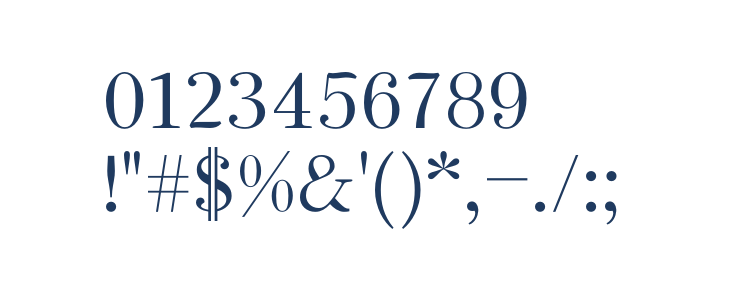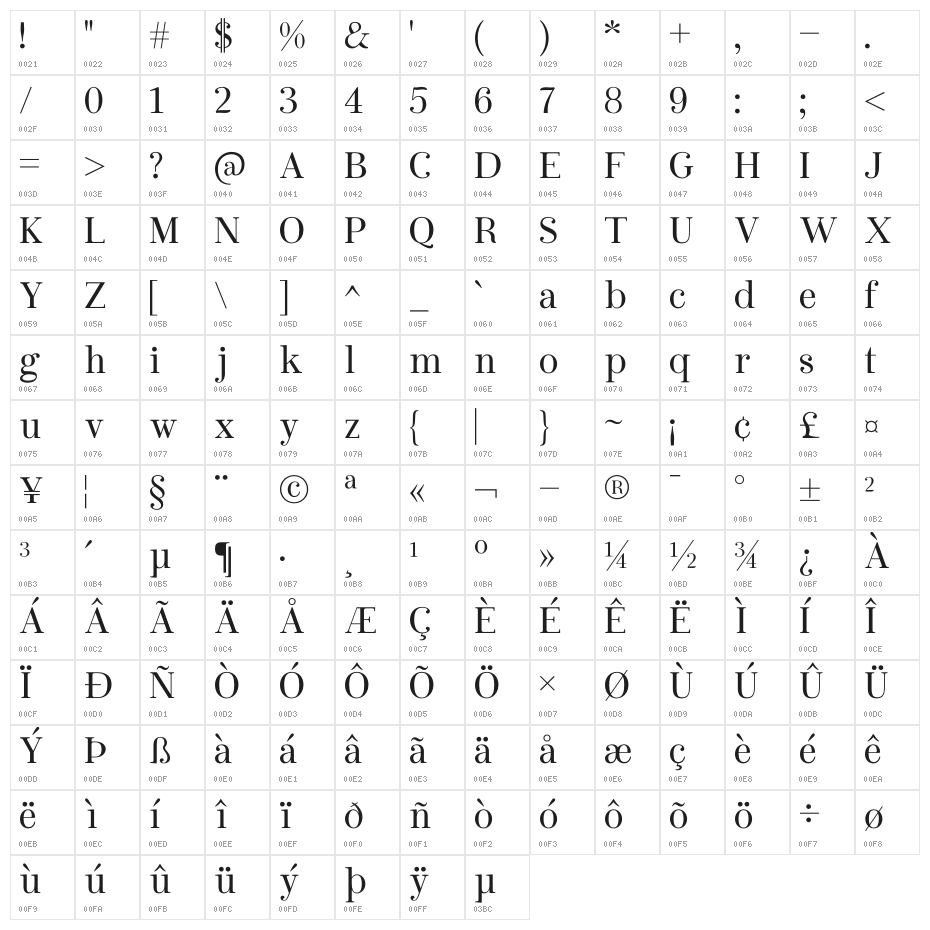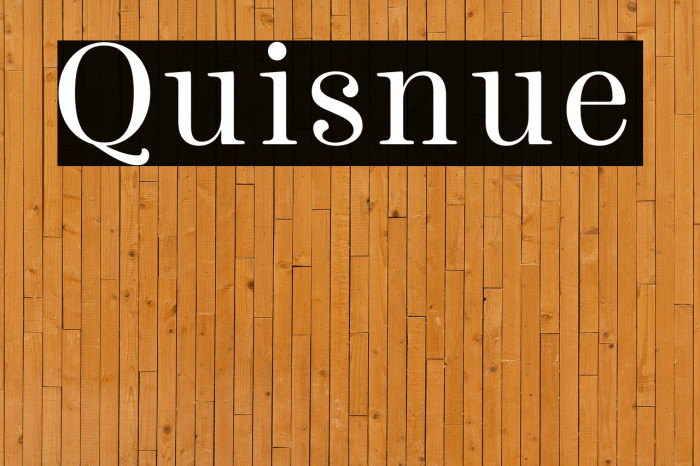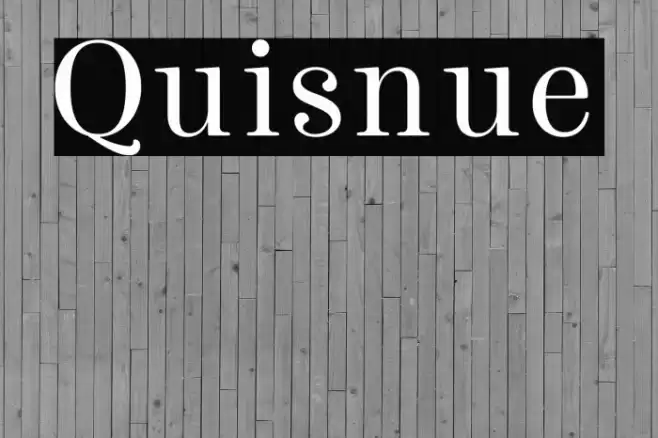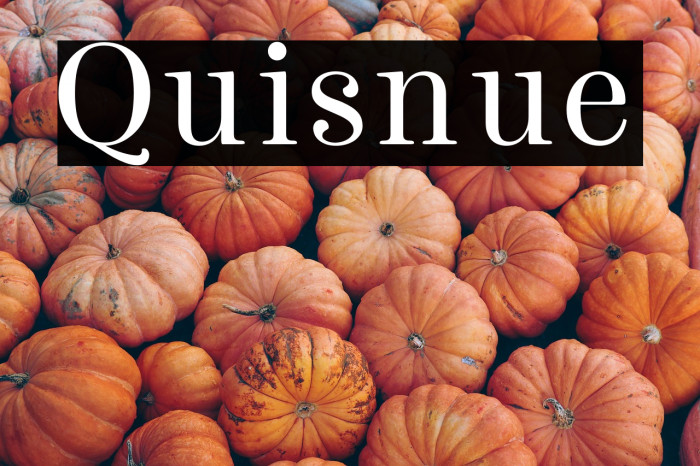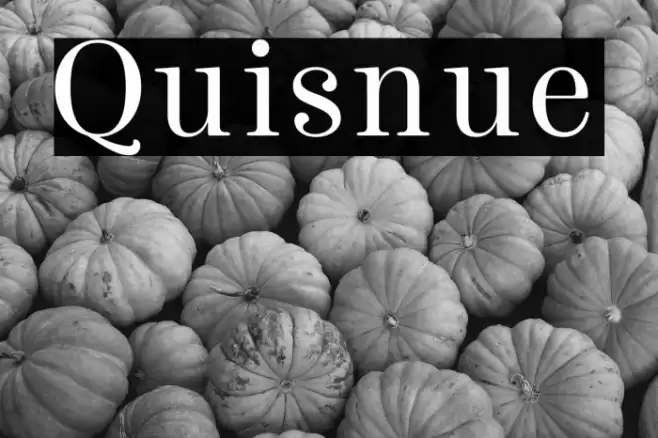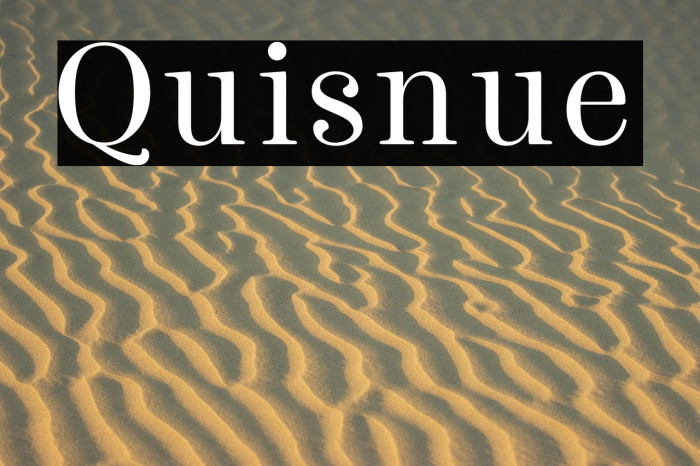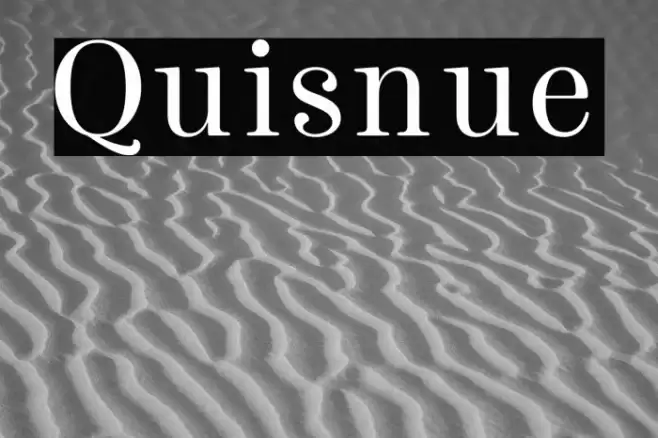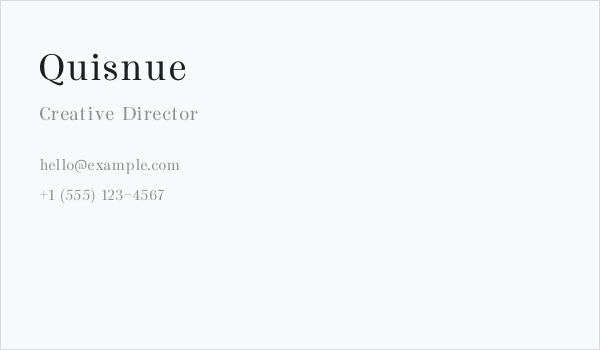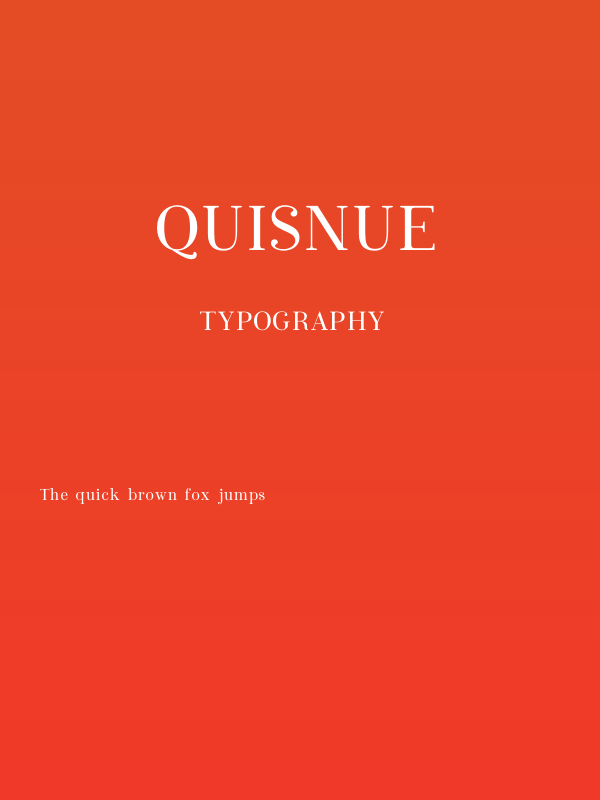
Quisnue Font
Quisnue Description
This font is a classic serif typeface that exudes elegance and sophistication. The characters are well-defined with a moderate contrast between thick and thin strokes, giving it a timeless appeal. The serifs are pronounced, adding a touch of formality and tradition. The uppercase letters are stately and commanding, while the lowercase letters maintain a graceful flow. The numerals are clear and balanced, making them easy to read. Special characters are included, enhancing its versatility for various applications. Overall, this font is suitable for projects that require a touch of class and readability.